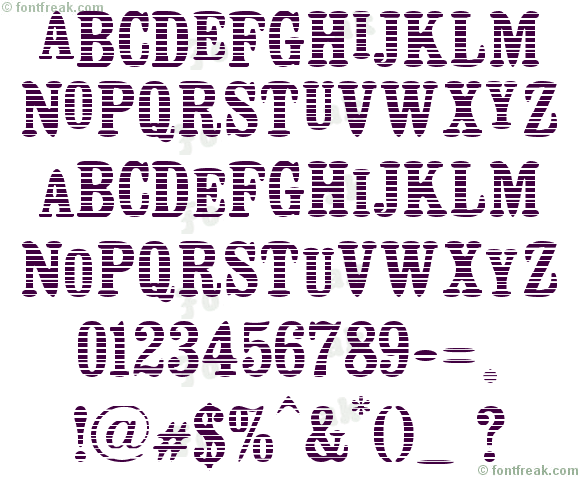
Persiana
About Persiana
Persiana is a striking display typeface crafted by the talented woodcutter Manero. This unique font falls into the category of decorative typefaces, characterized by its bold and distinctive letterforms. With a combination of thick and thin strokes, Persiana offers a captivating visual contrast that draws attention and adds flair to any design project. The spacing between letters is thoughtfully designed to enhance readability while maintaining an artistic touch, making it a versatile choice for various applications.
The font's visual characteristics include a modern yet slightly rustic aesthetic, where the decorative elements evoke a sense of craftsmanship and creativity. These attributes make Persiana particularly well-suited for use in wedding invitations, where elegance and style are paramount. Additionally, its boldness makes it an excellent choice for movie posters that require a strong visual impact, as well as for restaurant menus that aim to create an inviting atmosphere. Graphic designers will find this font invaluable for branding projects that demand a unique identity, while small business owners can leverage its charm in promotional materials to attract customers.
What truly sets Persiana apart is its ability to blend artistry with functionality. It stands out not only for its aesthetic appeal but also for its versatility, making it an ideal choice for numerous design contexts. Whether you are creating something formal or playful, Persiana can bring your vision to life with its unique charm.